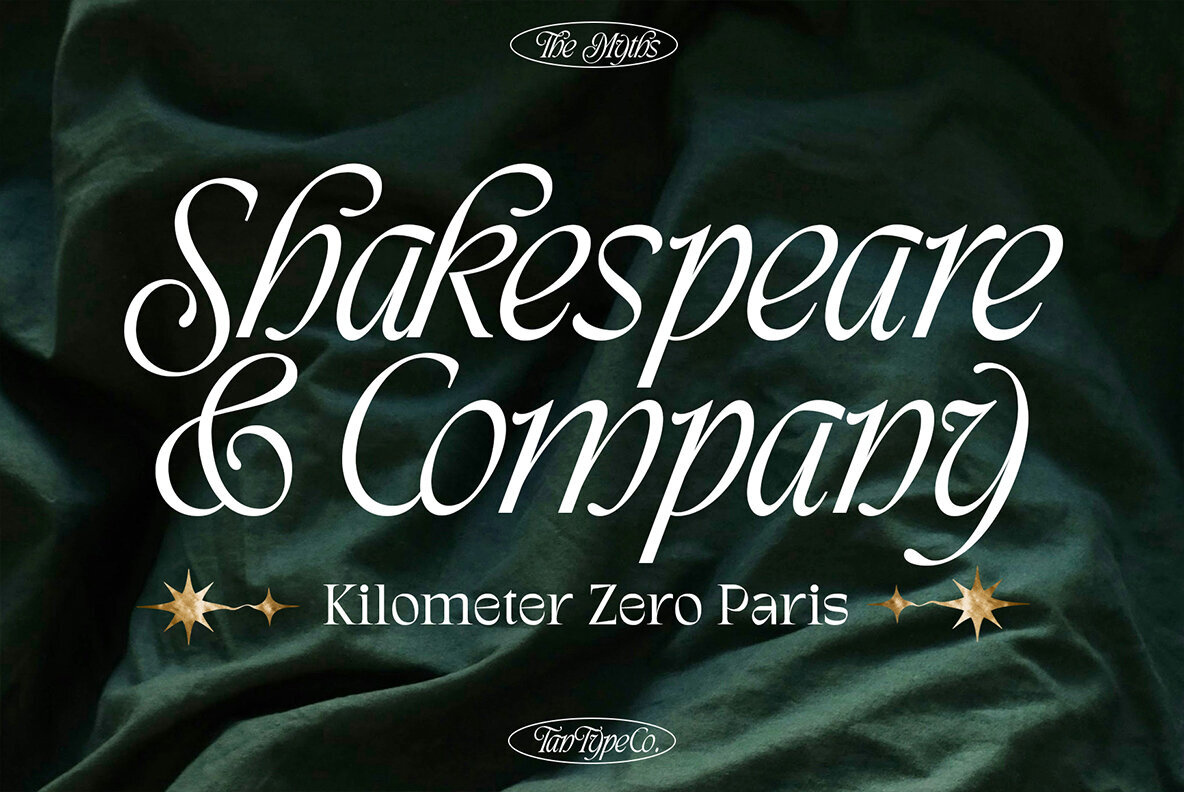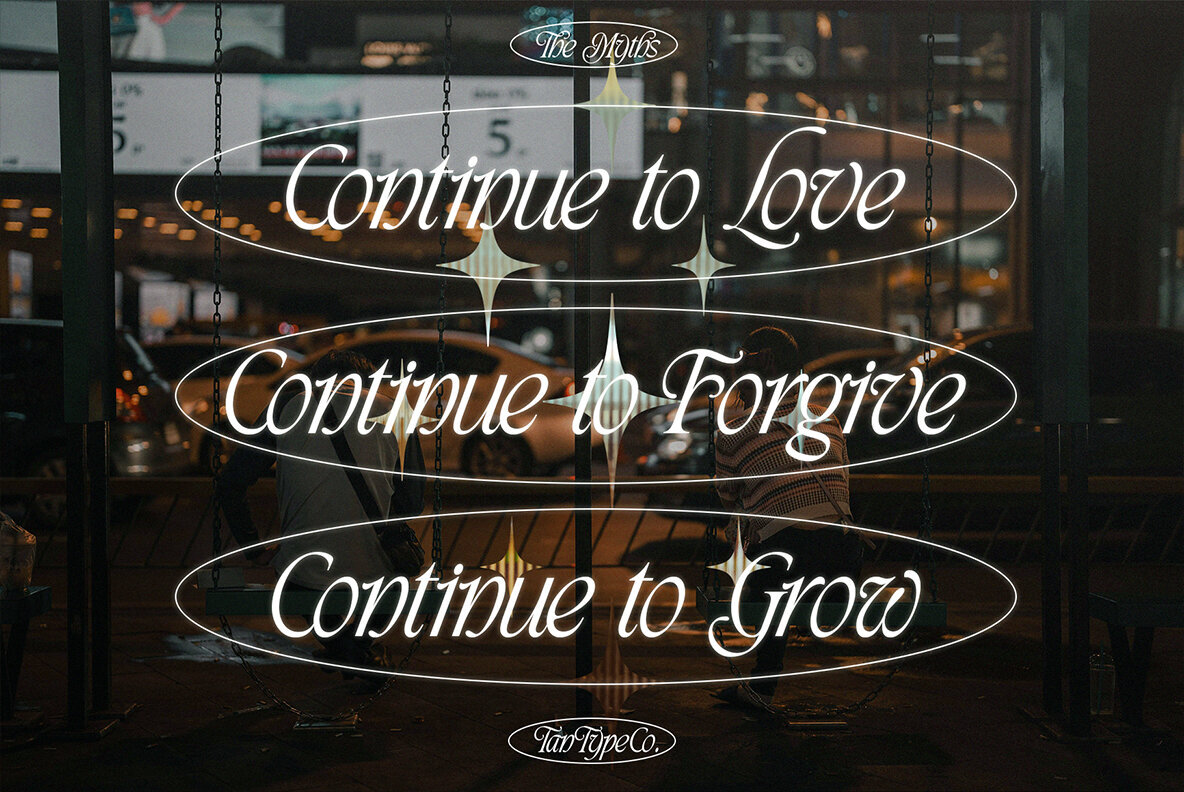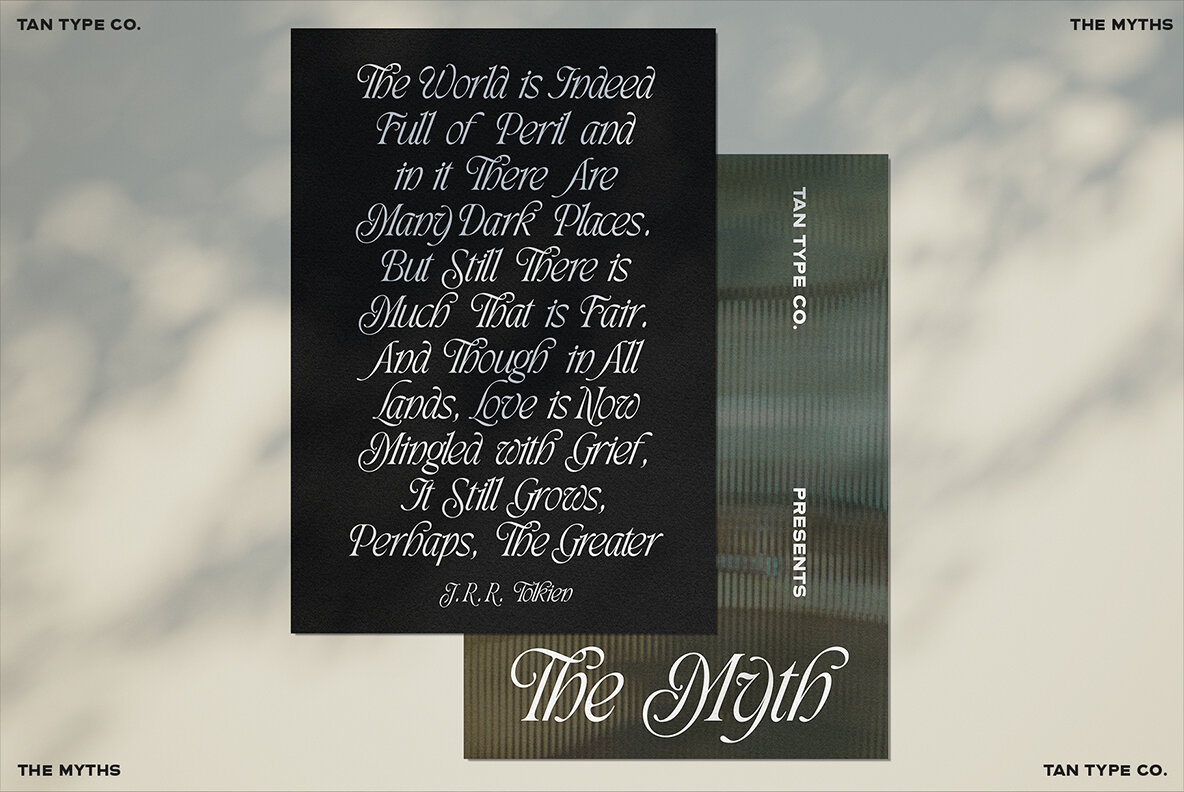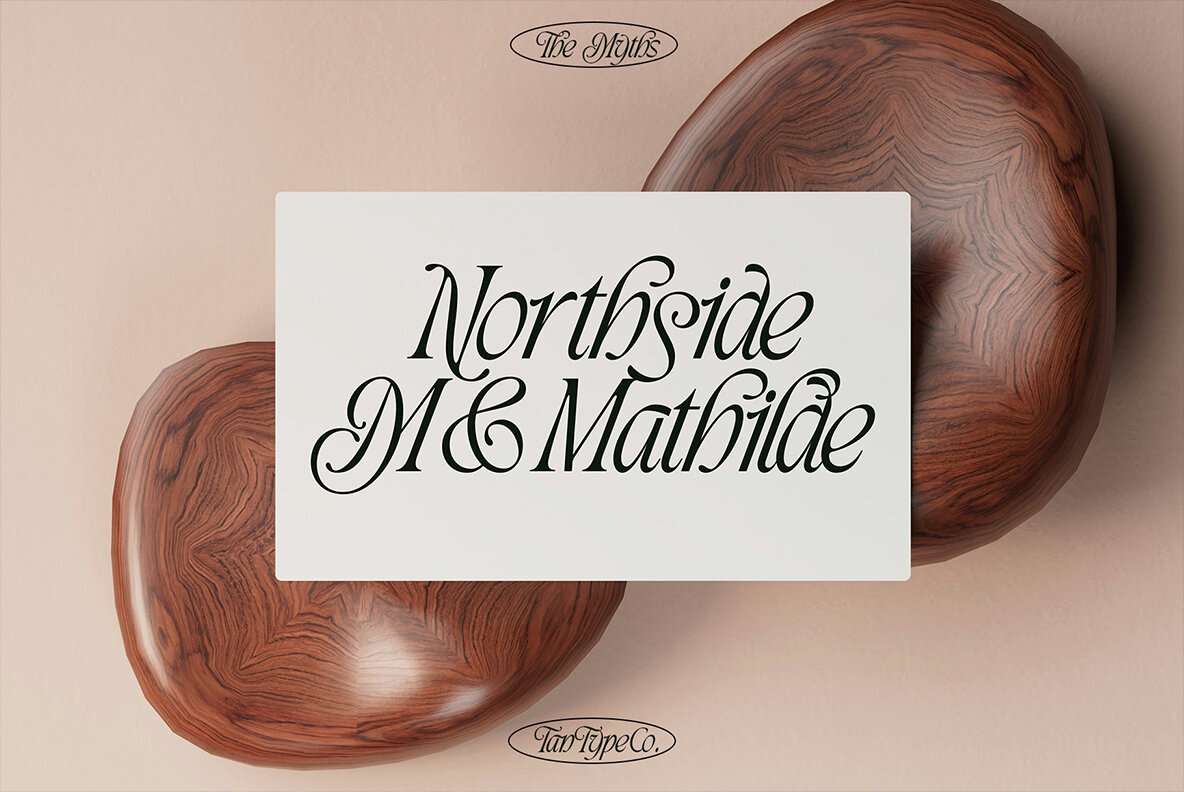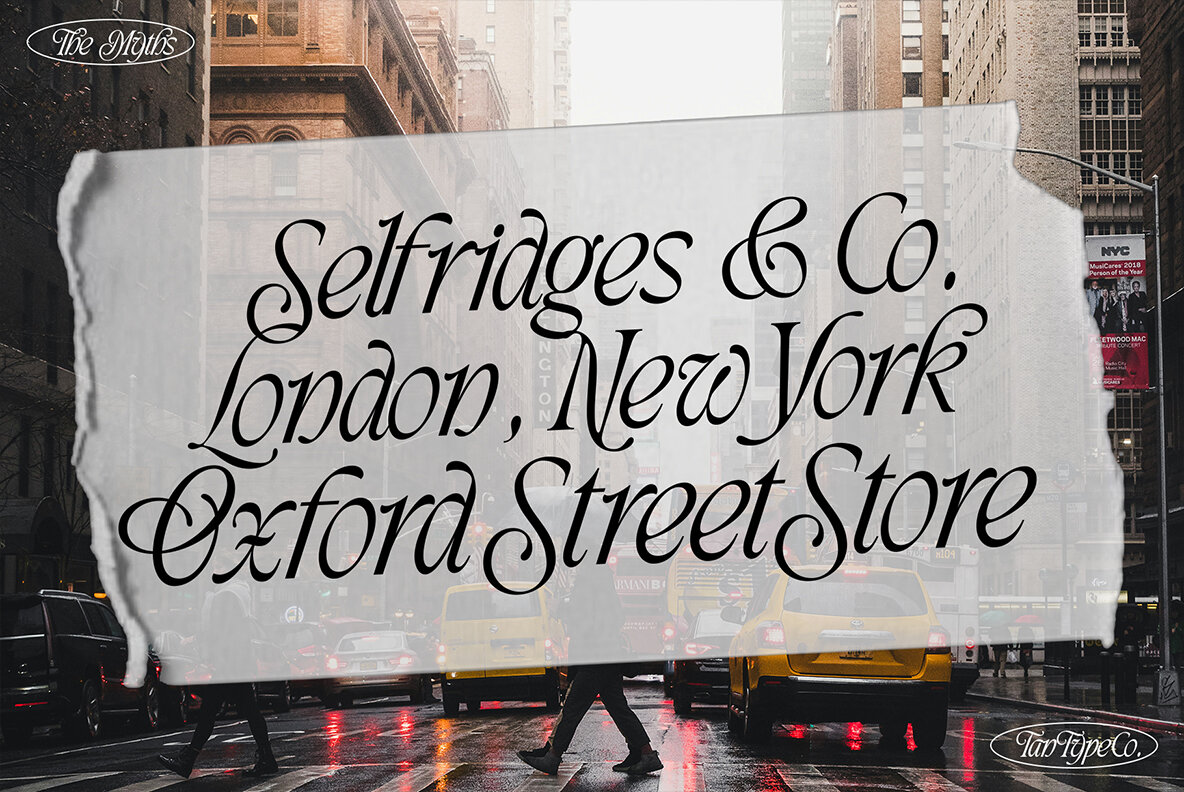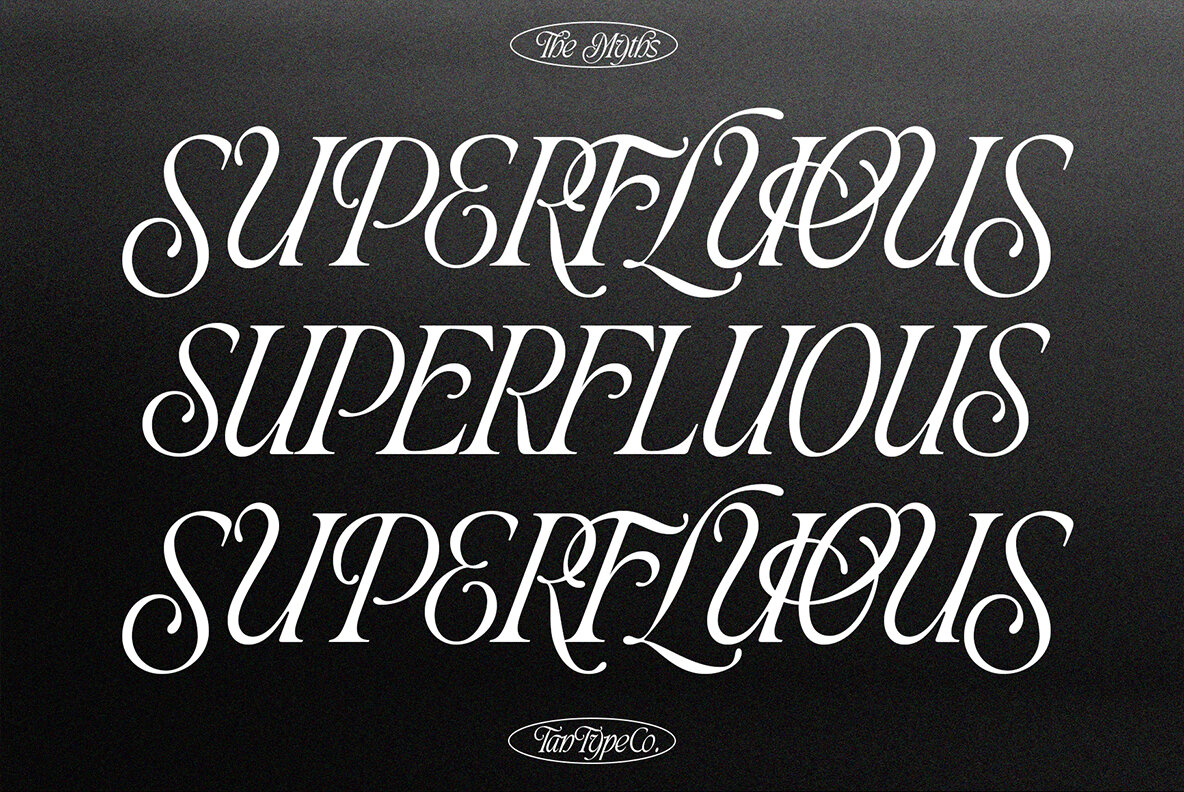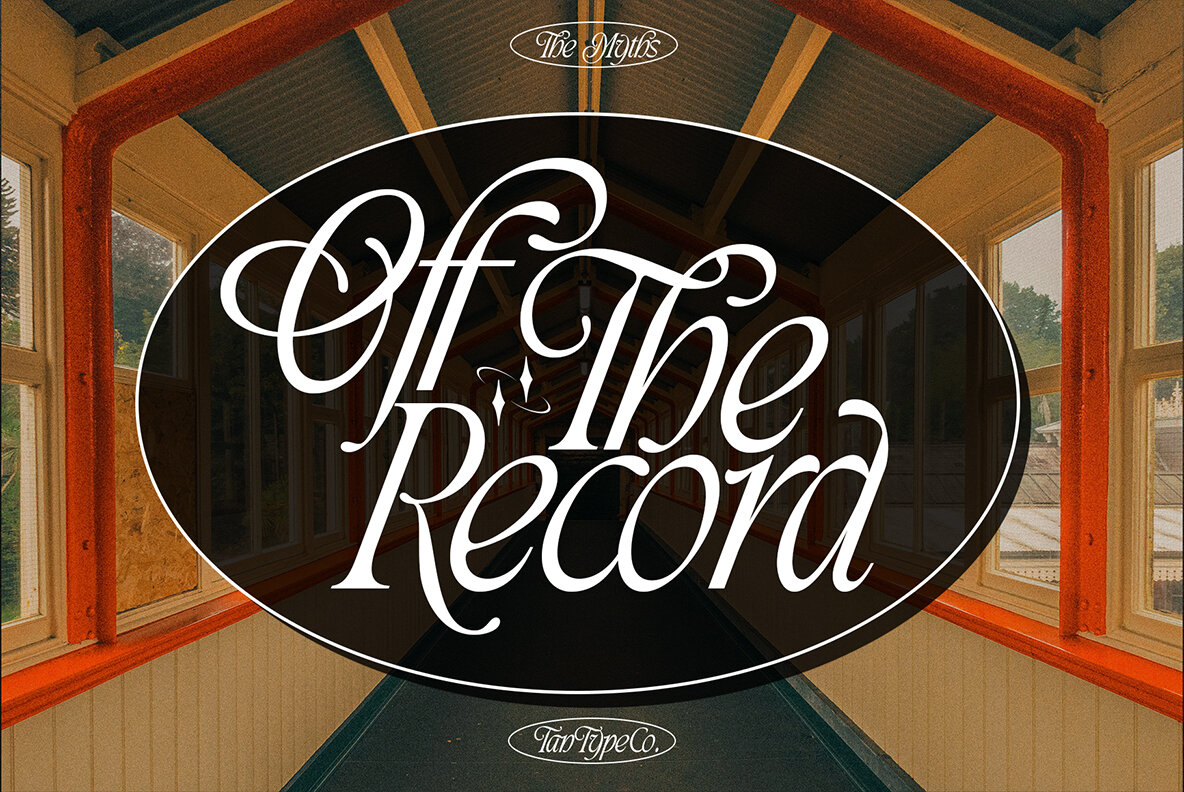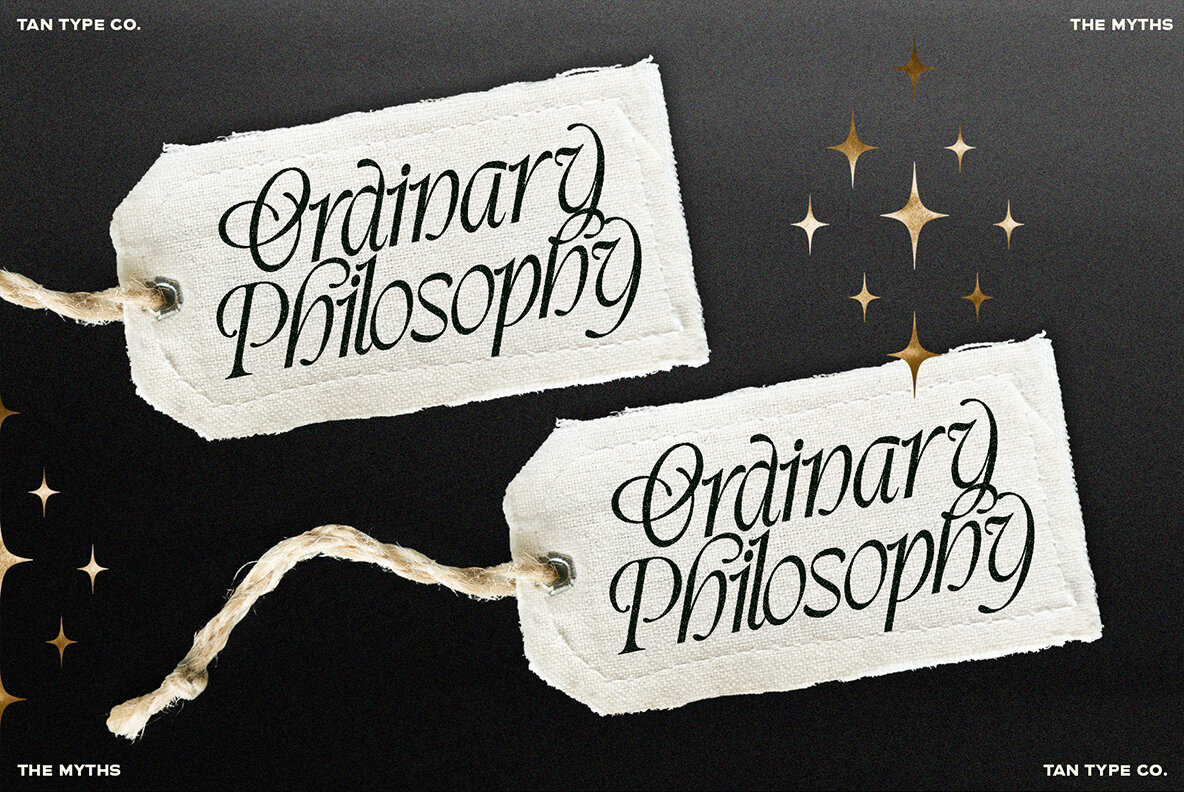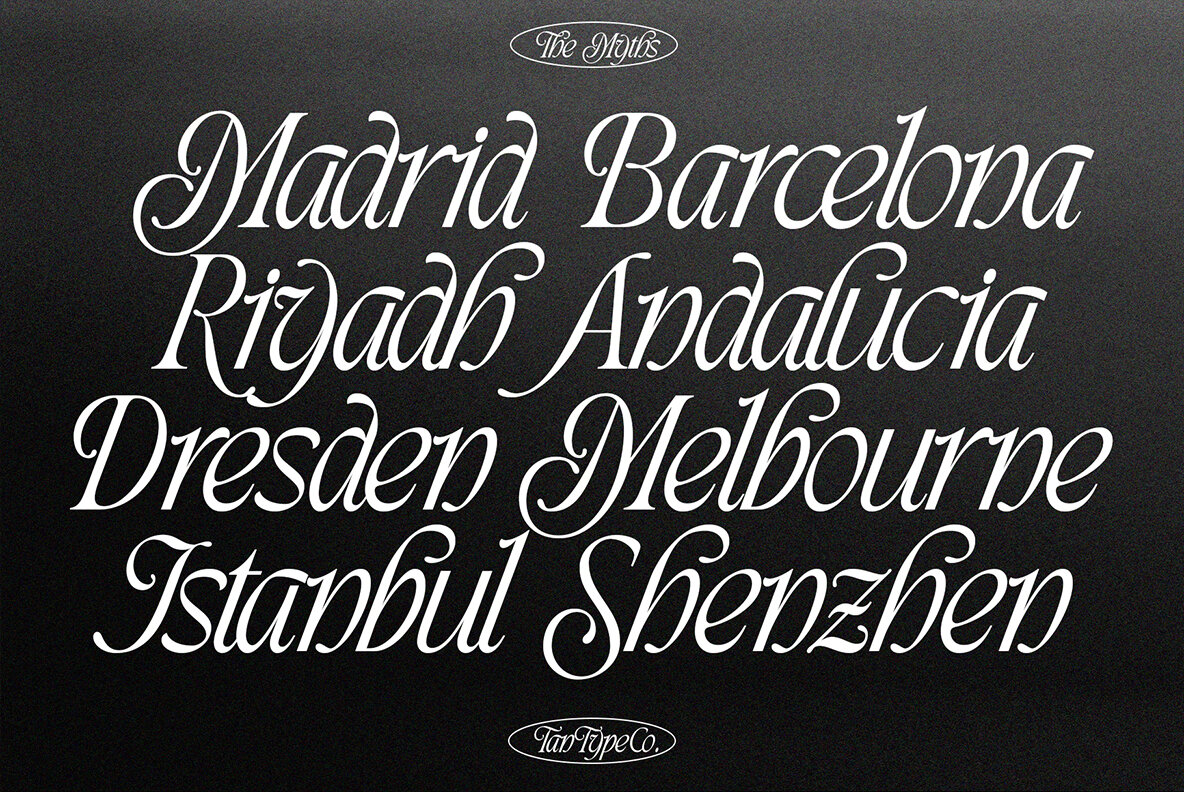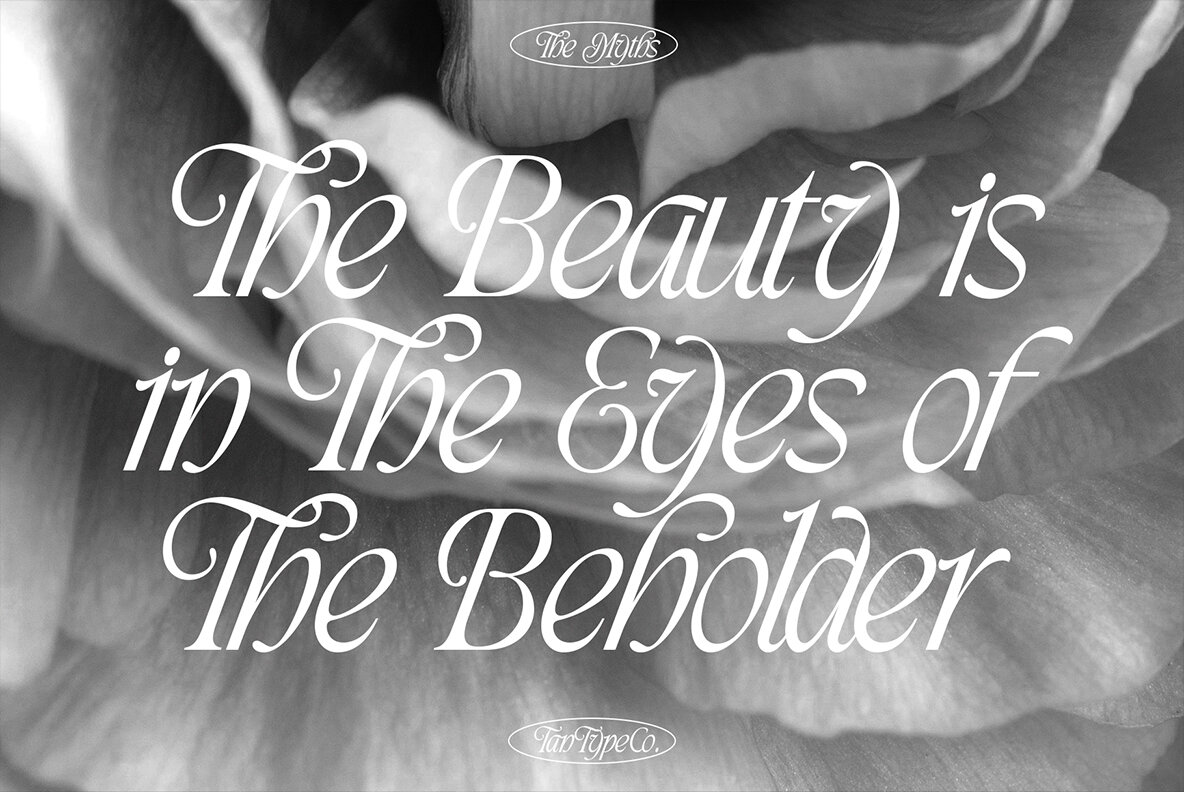
TAN THE MYTHS Font
TAN THE MYTHS Regular
The Myths by Tan Type Company is a classic serif typeface exuding a romantic flair. It harmoniously blends elegance and playful elements, making it suitable for contemporary designs. This serif typeface offers a timeless appeal that adds depth and character to any project.
Designed with both creativity and functionality in mind, The Myths stands out with its classy yet modern aesthetic. Its versatile style can effortlessly adapt to various design needs, from branding to editorial work, providing a unique and sophisticated touch to your creative endeavors.